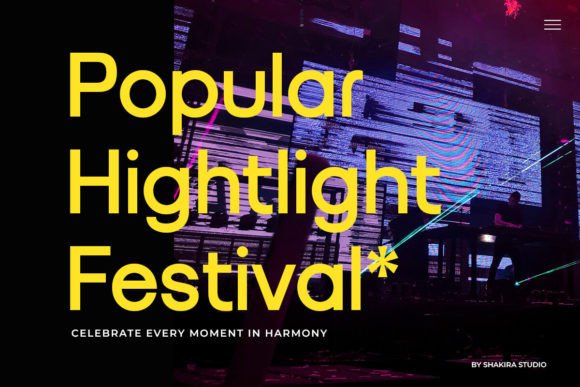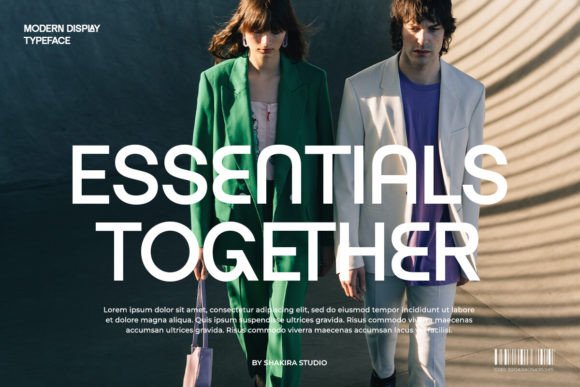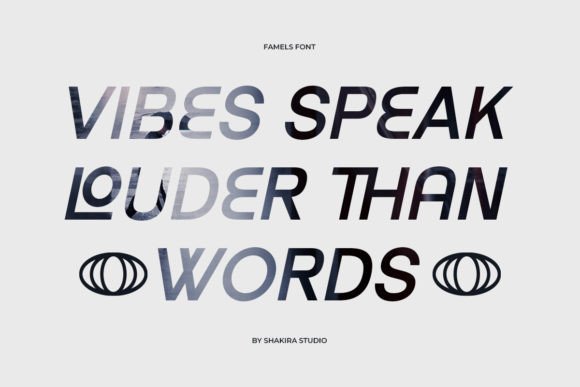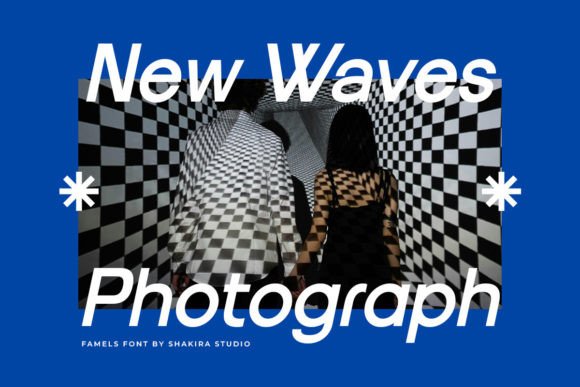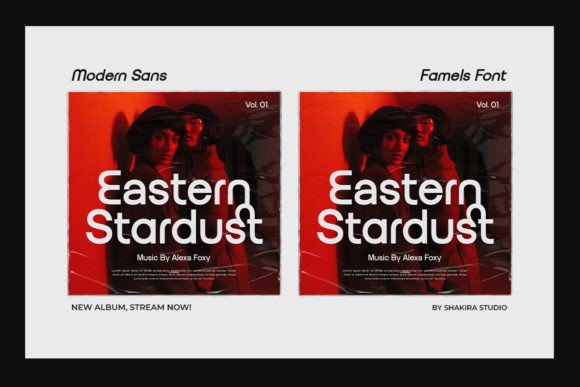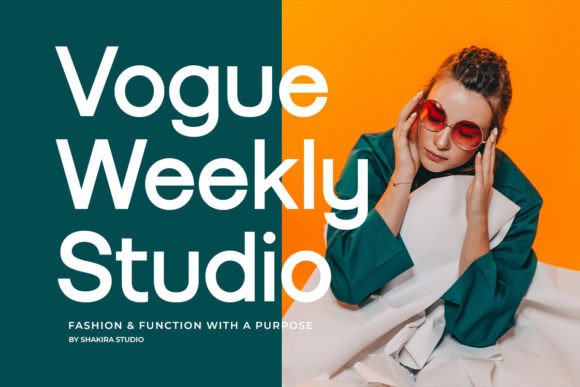
Introducing Famels – The Modern Display Sans Serif Font!
In the world of typography, a font can make or break a design. With the ever-evolving landscape of graphic design, it’s essential to stay on top of the latest trends and styles. That’s where Famels comes in – a modern display sans serif font that’s taking the design world by storm. In this article, we’ll dive into the world of Famels, exploring its features, benefits, and uses, and why it’s becoming the go-to font for designers and crafters alike.
The Perfect Blend of Modern Aesthetics and Minimalist Design
Famels is the epitome of modern typography, boasting a perfect blend of sleek lines, clean aesthetics, and minimalist design. This sans serif font is designed to make a statement, with a versatile nature that lends itself to a wide range of applications. Whether you’re working on a branding project, website design, or editorial content, Famels is the ideal choice for those looking to add a touch of sophistication and elegance to their work.
Key Features of Famels Font
So, what sets Famels apart from other fonts? Here are some of its key features:
- Regular and Italic Styles: Famels offers both regular and italic styles, providing flexibility and variety for your design projects.
- Stylish Alternates and Ligatures: Add a touch of personality to your designs with Famels’ stylish alternates and ligatures, perfect for creating unique and eye-catching typography.
- Clean Lines and Minimalist Design: Famels’ clean lines and minimalist design make it perfect for contemporary projects that require a sleek and professional look.
- Versatile Nature: This sans serif font is suitable for a wide range of applications, from branding and web design to editorial projects and more.
Why Choose Famels for Your Design Projects?
With so many fonts available, why choose Famels for your design projects? Here are just a few reasons:
- Modern and Sophisticated Look: Famels adds a touch of modernity and sophistication to any design, making it perfect for projects that require a contemporary look and feel.
- Elegant Typography: This font is designed to help you achieve elegant typography that’s both clean and refined.
- Easy to Read and Understand: Famels’ clear and concise design makes it easy to read and understand, perfect for body text and headings.
- Highly Versatile: With its range of styles and alternates, Famels can be used for a wide range of projects, from digital designs to print materials.
How to Use Famels in Your Design Projects
Ready to get started with Famels? Here are some tips on how to use this amazing font in your design projects:
- Branding: Use Famels as a primary font for your brand identity, creating a consistent and recognizable look across all your marketing materials.
- Web Design: Add a touch of modernity to your website with Famels, using it for headings, titles, and body text.
- Editorial Projects: Use Famels for editorial projects such as magazines, newspapers, and books, where its clean lines and elegant design shine.
- Digital Designs: Famels is perfect for digital designs, including social media graphics, presentations, and more.
| Font Name | Famels Font |
| Author | Shakira Studio |
In conclusion, Famels is a game-changing font that’s taking the design world by storm. With its modern aesthetics, minimalist design, and versatile nature, it’s the perfect choice for designers and crafters looking to elevate their design projects. Whether you’re working on branding, web design, or editorial projects, Famels ensures your work looks modern, sophisticated, and elegant. Join the trend towards clean and elegant typography with Famels – the perfect font for those who appreciate timeless simplicity and modern appeal.